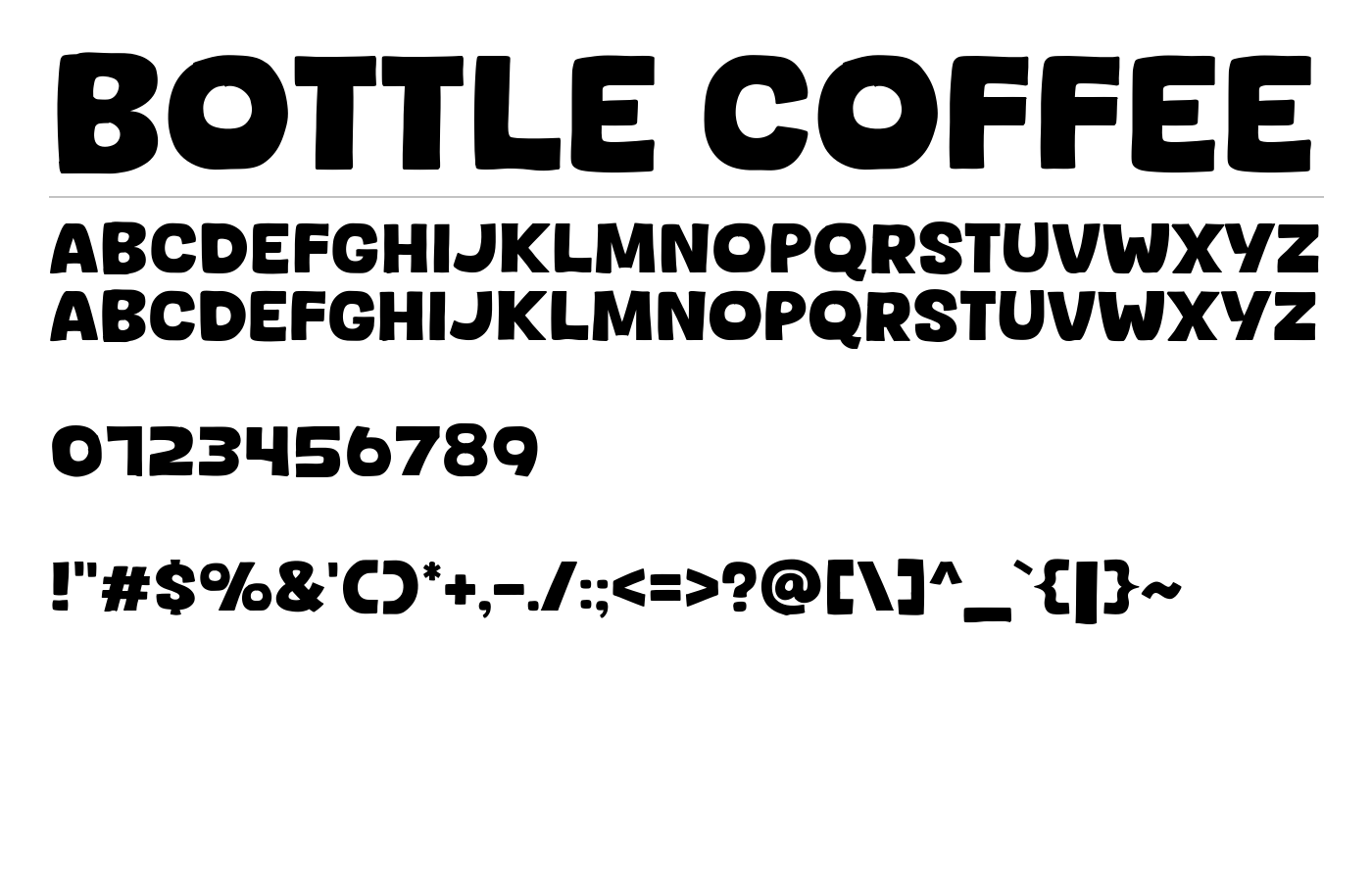
Bottle Coffee is a bold, playful sans serif font characterized by its chunky, irregular letterforms with a hand-crafted feel. Its wide proportions, smooth curves, and slightly quirky shapes give it an approachable and fun personality, making it perfect for branding, packaging, and headlines that need a friendly and casual vibe. This font works well in creative projects aiming for a warm, informal tone while maintaining strong visibility and impact.
Bottle Coffee Font
About Bottle Coffee Font